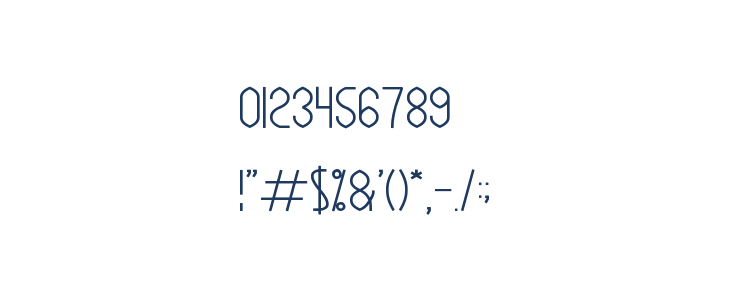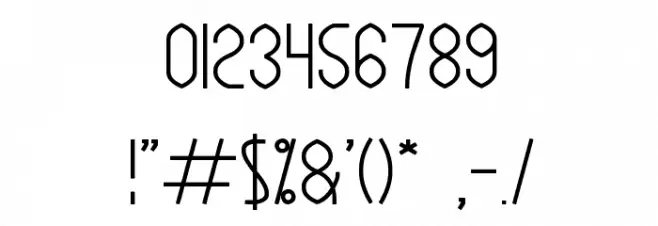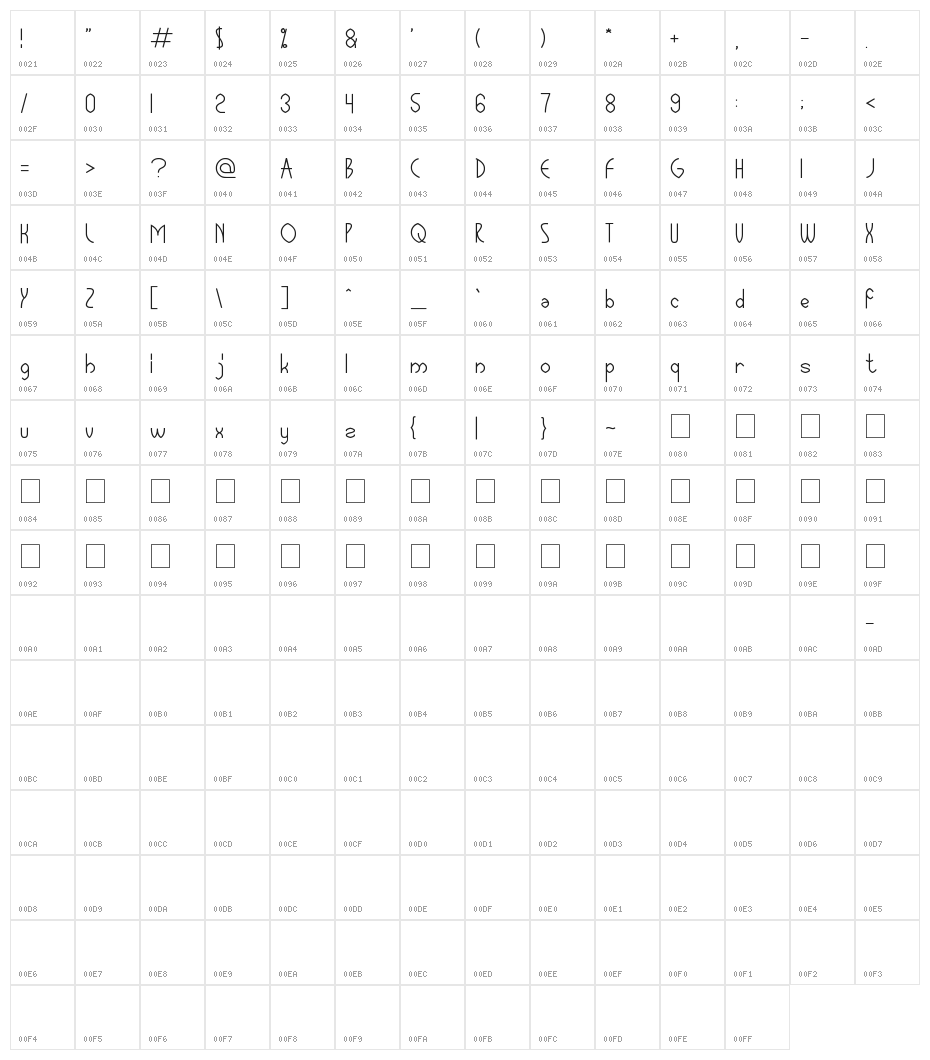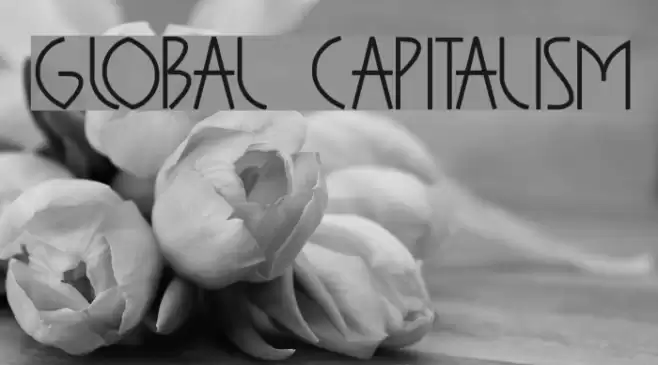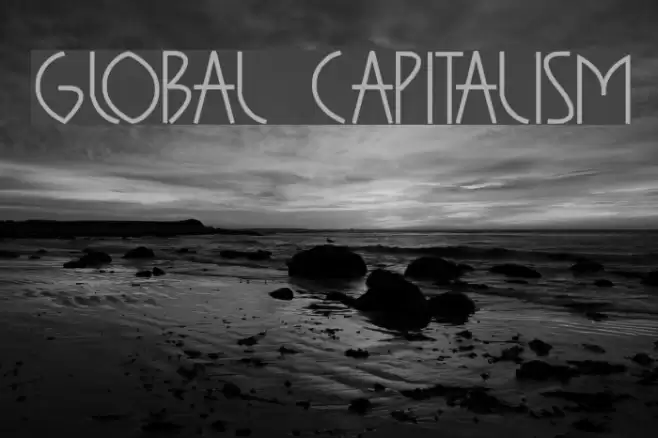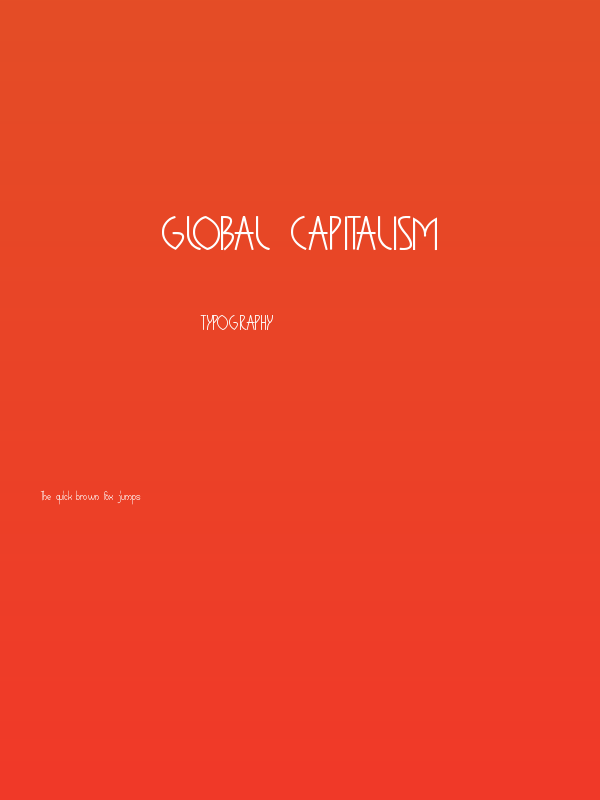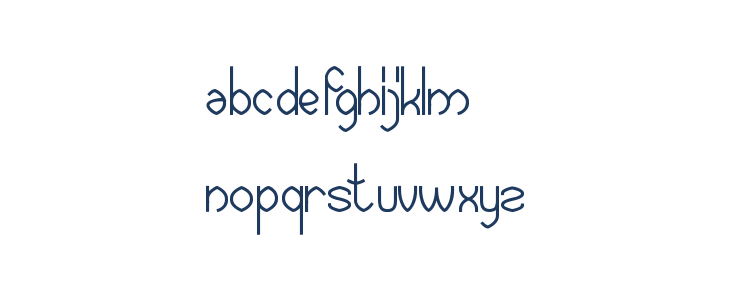
GLOBAL CAPITALISM Font
GLOBAL CAPITALISM Description
This font features a unique and modern design with geometric elements that create a futuristic and stylish appearance. The uppercase letters are characterized by sharp angles and clean lines, giving them a distinctive and edgy look. The lowercase letters maintain a similar aesthetic, with a slightly softer approach, providing a harmonious balance between the two cases. The numerals are consistent with the overall style, offering a sleek and contemporary feel. Special characters are well-integrated, maintaining the font's cohesive design. This font is ideal for projects that require a modern and innovative touch, making it suitable for branding, advertising, and digital media.
| Use Case | Headlines, Logos, Digital Media |
| Proposed Projects | Ideal for branding, advertising, digital media, and innovative design projects. |